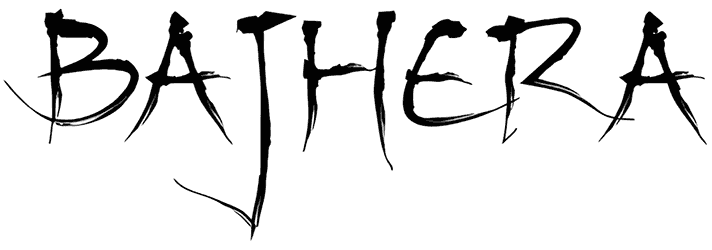
Bajhera Font
Bajhera is hither to be one of your options to create a mysterious and psychedelic design. This scratched font can return your words to narrow text with an eldritch mood. Although Bajhera has no offer for lowercase letters, it can be an agitating pattern for many eerie designs, such as cover lettering, backgrounds, graphic arts, and others.